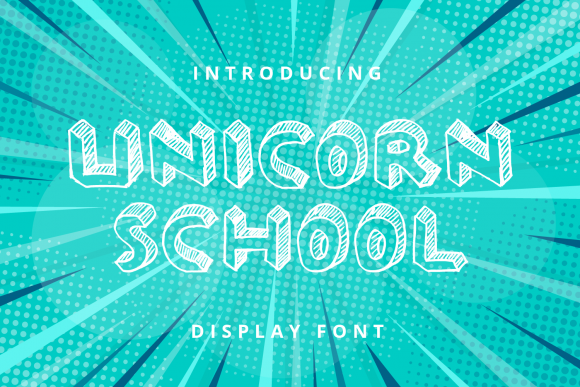
Embark on a whimsical adventure with Unicorn School Font, an enchanting display font that sparks creativity and ignites imagination. Designed by the ingenious minds at Planetz Studio, this typeface is a captivating blend of boldness and playfulness.
Indulge in the boundless possibilities that Unicorn School Font offers. Its versatile nature seamlessly adapts to a myriad of design realms, making it the perfect companion for logo designs, posters, headlines, social media graphics, and even website headers. Unleash your artistic flair and give life to captivating compositions that resonate with your audience.
With its captivating outlined style, Unicorn School Font effortlessly commands attention, inviting viewers on a mesmerizing journey. Its alluring presence adds a touch of magic to any design, whether you're captivating your audience with eye-catching posters or crafting a spellbinding website.
Unleash your imagination and embark on a creative odyssey with Unicorn School Font. Its versatility knows no bounds, empowering you to weave intricate typographic tapestries that evoke wonder and enchant your audience. Experience the transformative power of this font and elevate your designs to extraordinary heights.